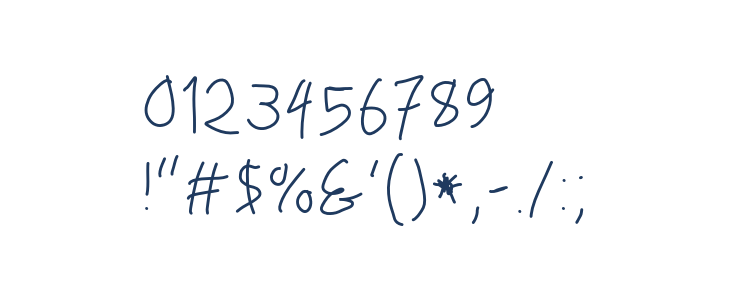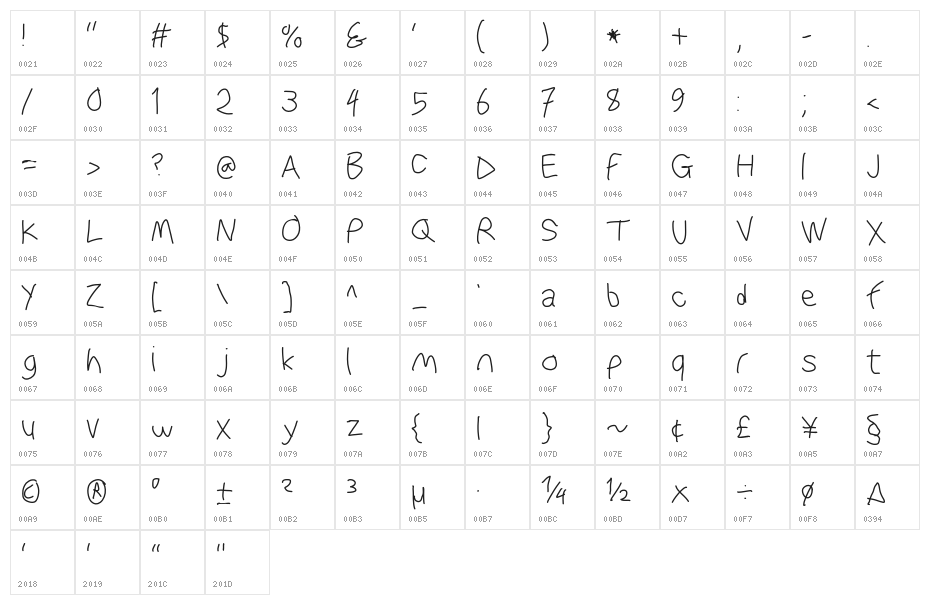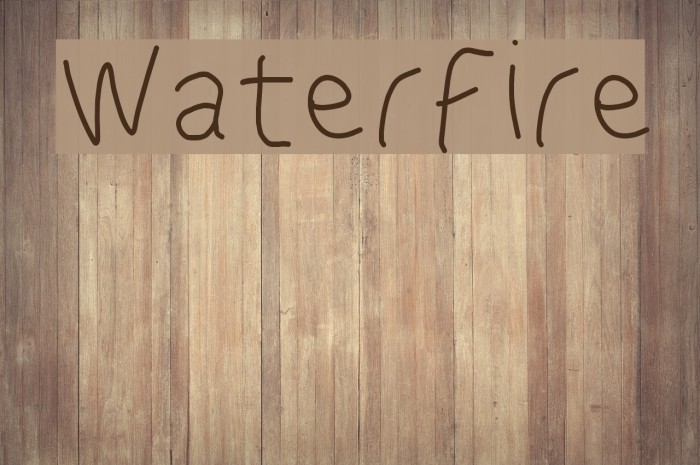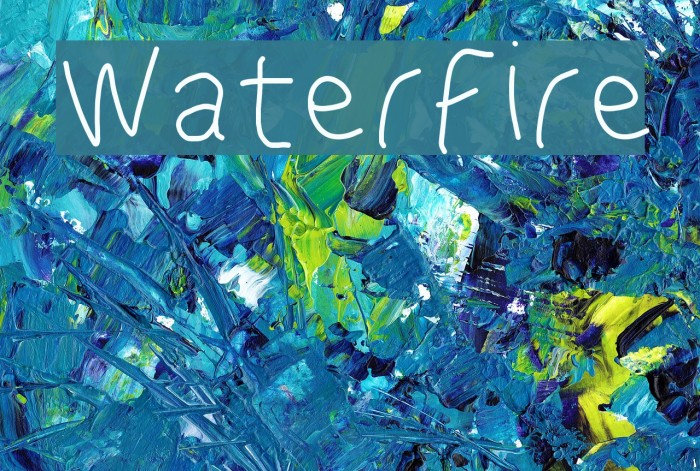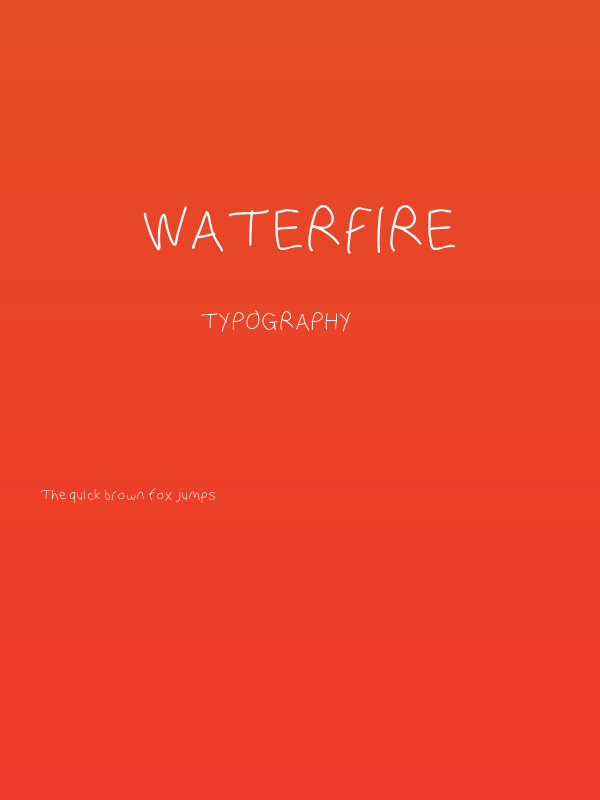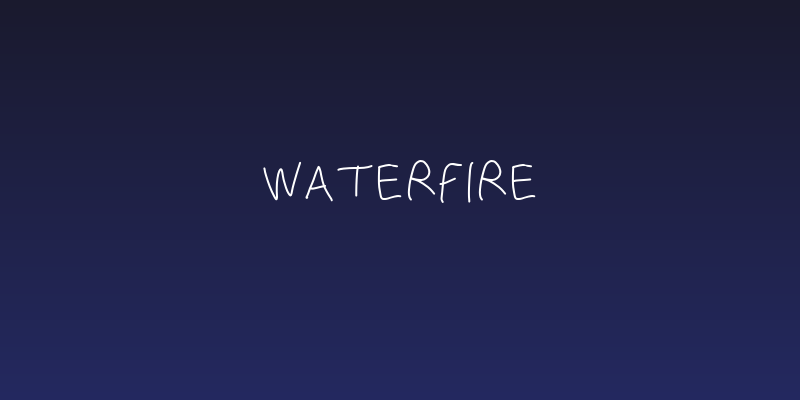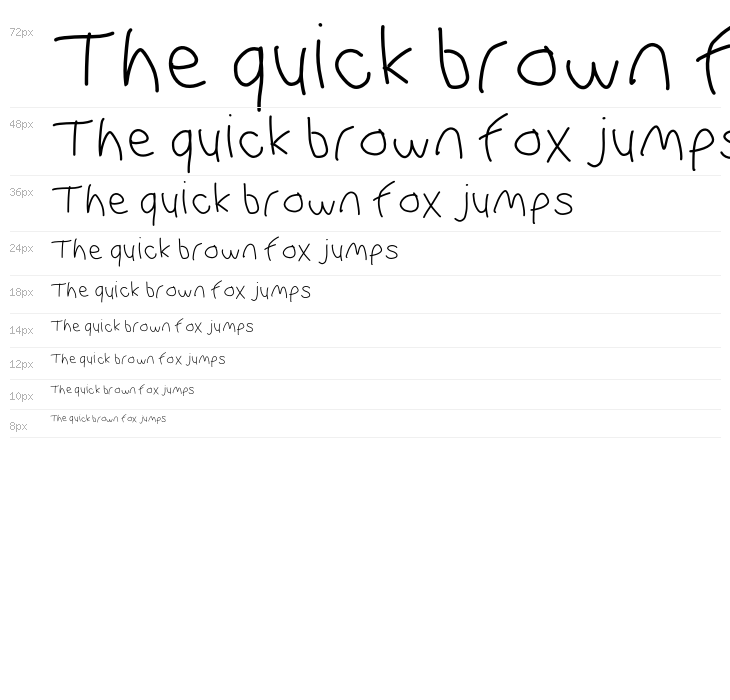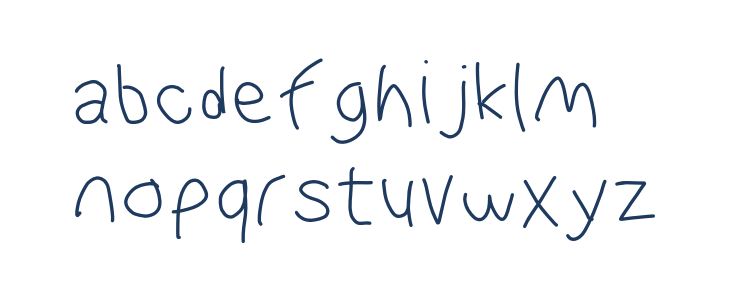
WaterFire Font
WaterFire Description
This font exudes a playful and informal vibe, characterized by its handwritten style. The letters are slightly irregular, giving it a personal and casual feel. The strokes are consistent in thickness, contributing to a uniform appearance despite the whimsical nature of the characters. The uppercase and lowercase letters maintain a coherent style, with rounded edges and a slight tilt, enhancing the font's approachable and friendly aesthetic. The numerals and special characters follow the same design principles, ensuring a cohesive look across all glyphs. This font is perfect for projects that require a touch of personality and warmth.